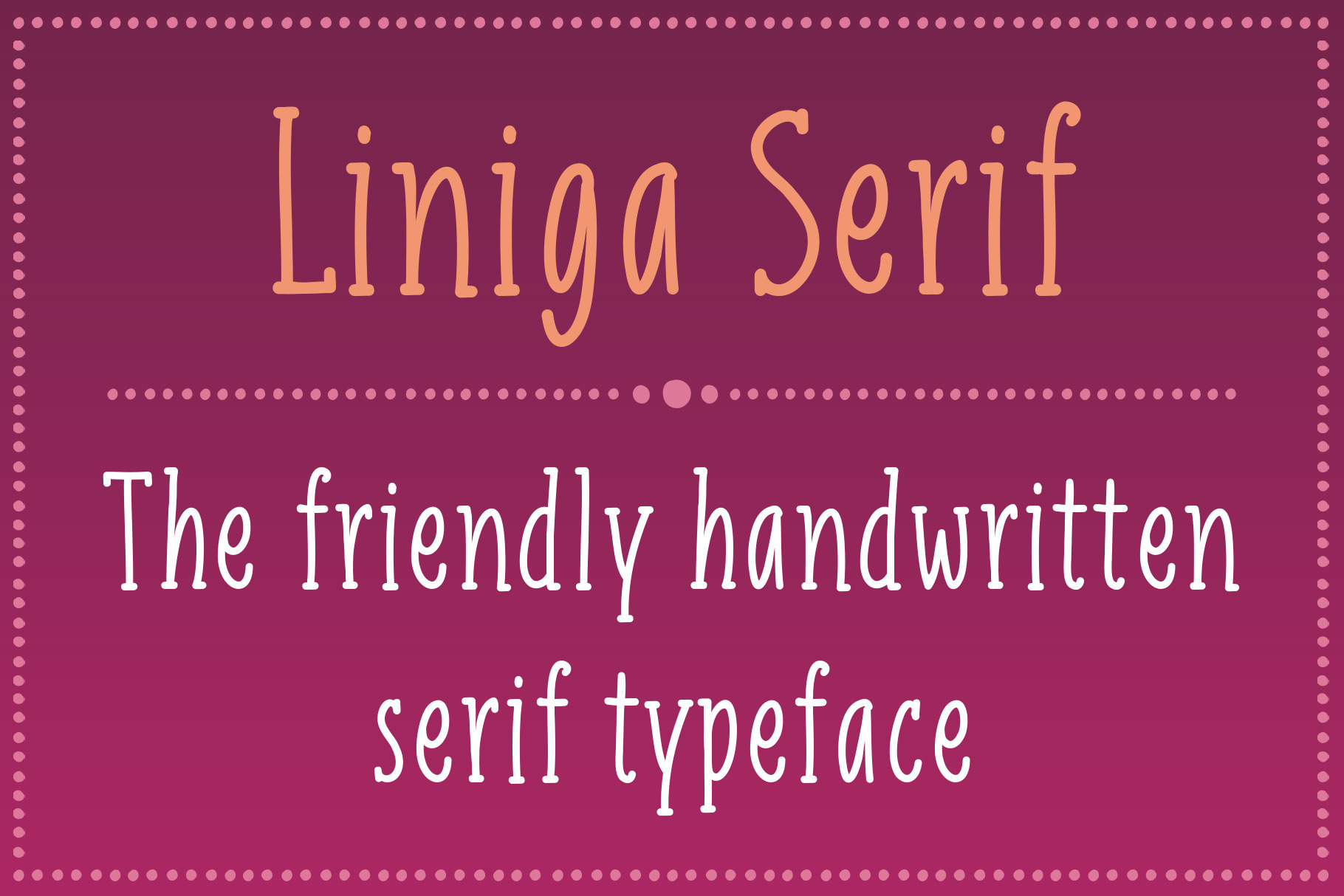
Liniga Serif Font
Linger Serif is a tall and friendly handwritten typeface with a simple structure and low contrast. It is the serif version of Liniga. Works well for both display and body text.